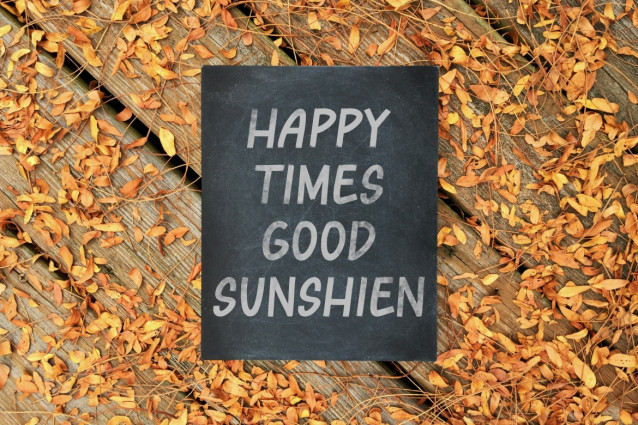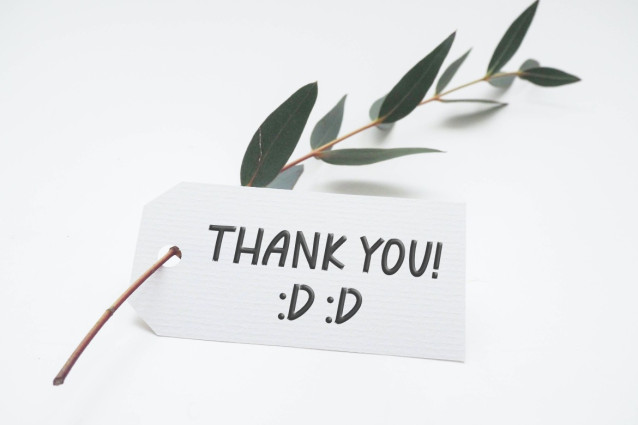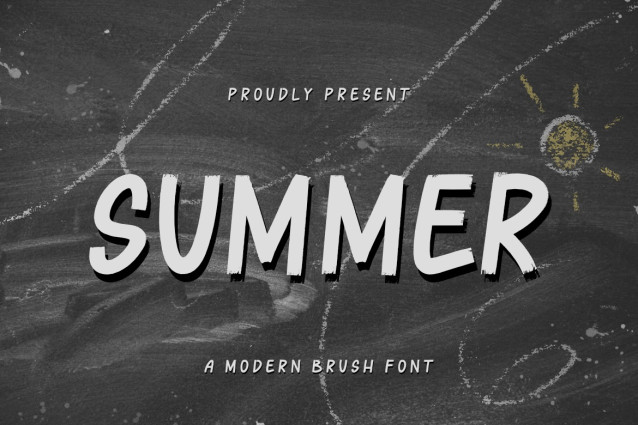
Summer Display Typeface is a simple and modern display font suitable for quotes, logos, headings, titles, and many more. Use it on any of your creative projects, and your designs will become outstanding!
Summer Display Typeface
| Designer Name: | eemadsgn. |